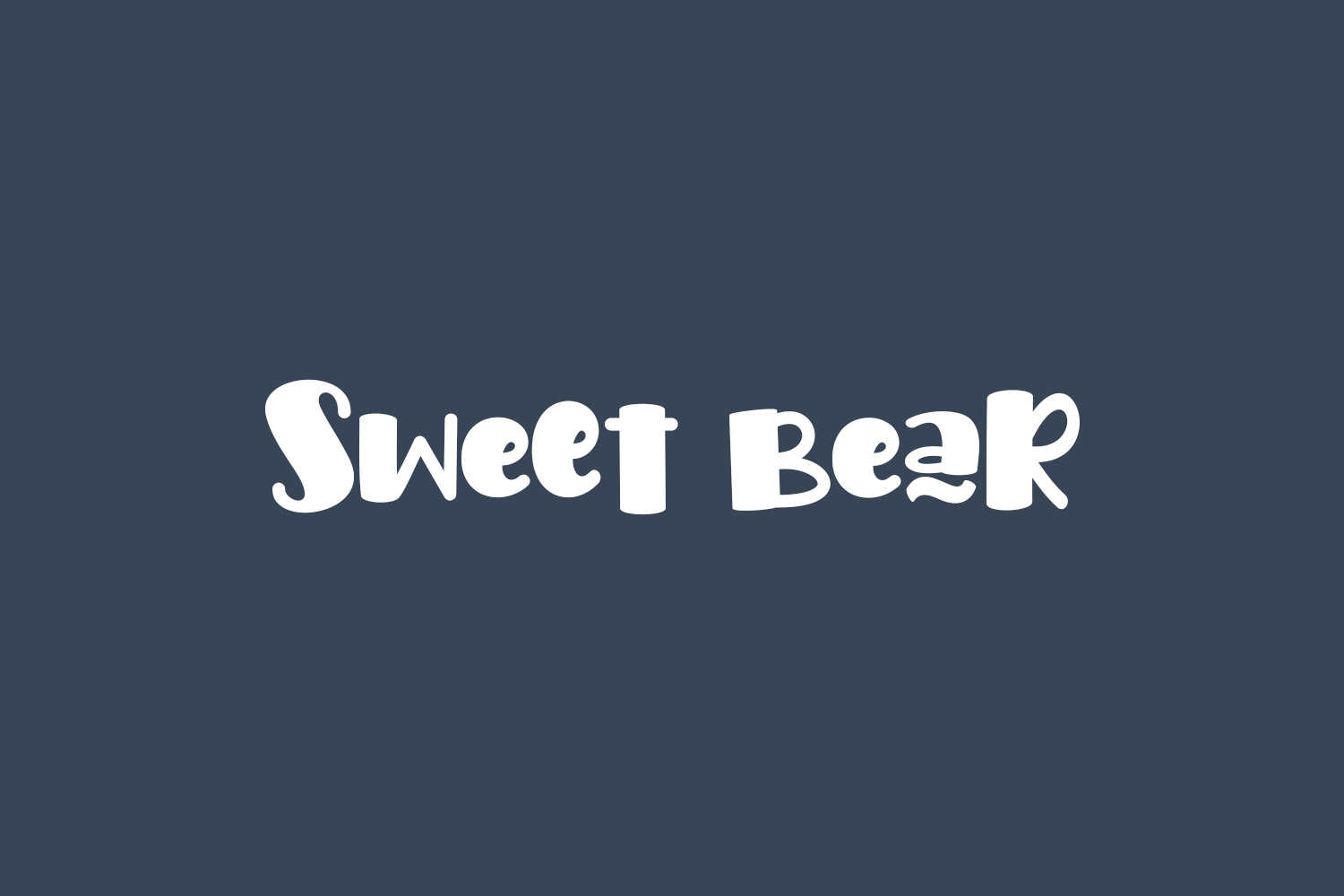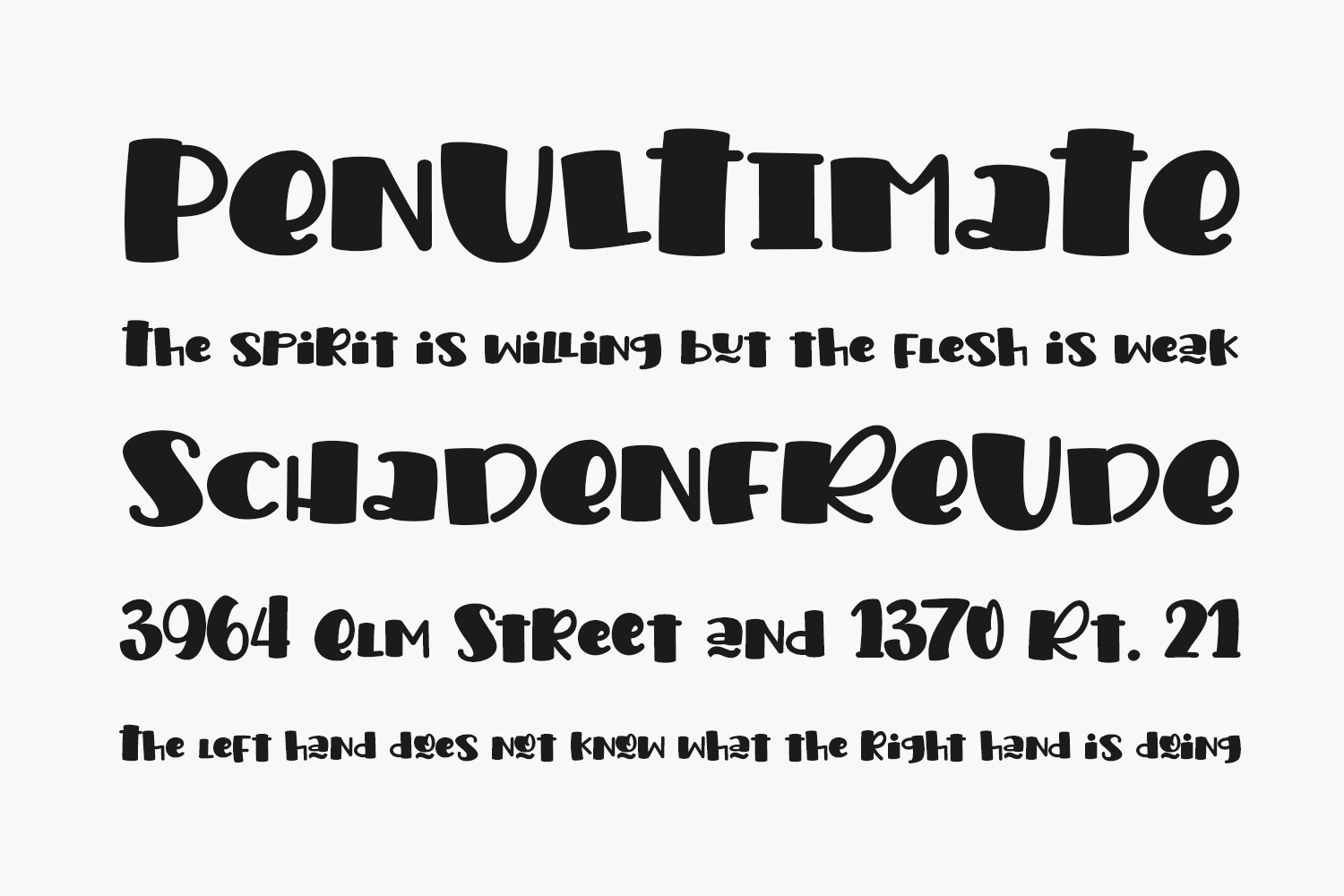
Sweet Bear Free Font is a very minimalistic and playful display font perfect for logos, signs, tags, T-shirts, and many more. Add it to any of your creative projects, and they will capture everyone’s attention. Sweet Bear Free Font was designed by Agustina Sri Suryanti and is free for personal use only. Please purchase the full version for commercial use.